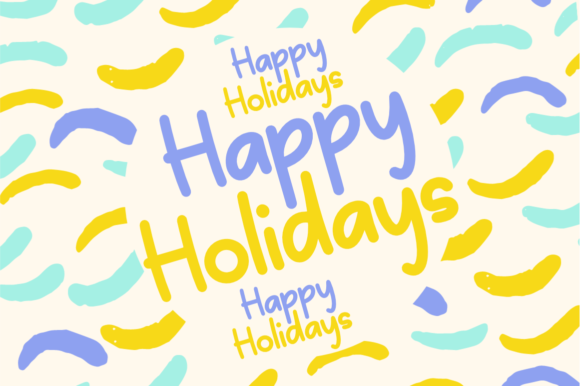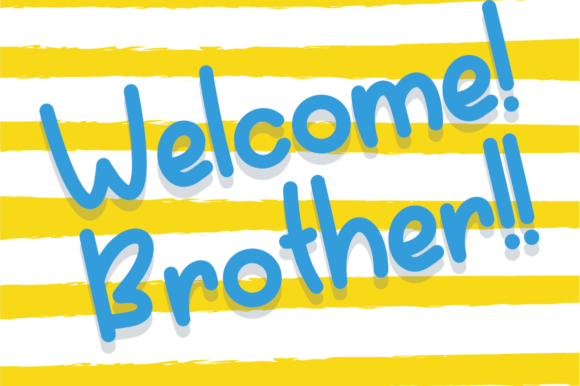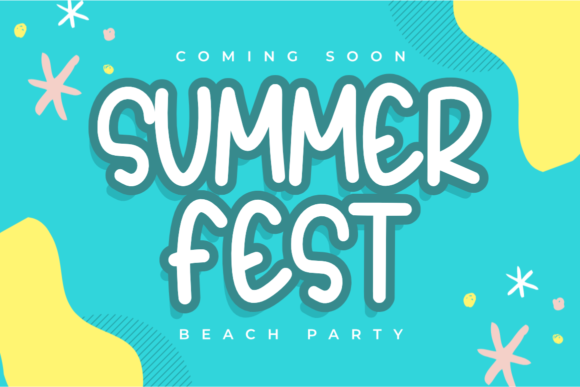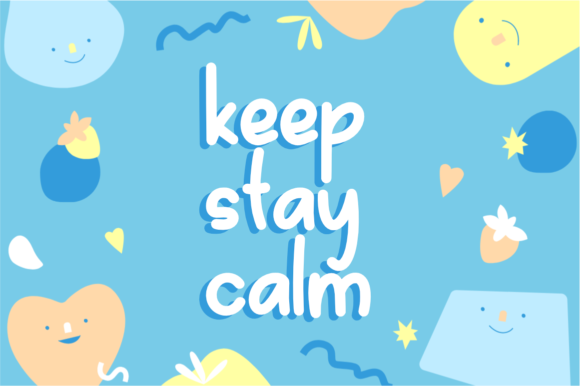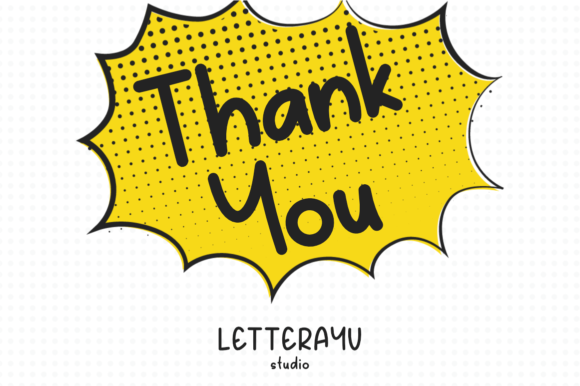
Introducing Comic Kans Font: The Cute Script Font for Creative Designs
Are you a designer or crafter looking for a font that can add a touch of sweetness to your next project? Look no further than Comic Kans Font! This versatile script font is perfect for a wide range of applications, from greeting cards to kids’ crafts, and is sure to bring a smile to anyone’s face.
What is Comic Kans Font?
Comic Kans Font is a cute script font that is designed to be playful, fun, and engaging. Its unique and quirky style makes it perfect for designs that require a personal touch. The font is highly legible, making it suitable for both digital and print designs.
Features of Comic Kans Font
- Unique and Quirky Style: Comic Kans Font has a distinct style that sets it apart from other script fonts. Its playful and fun design makes it perfect for creative projects.
- Highly Legible: The font is designed to be easy to read, making it suitable for both digital and print designs.
- Versatile: Comic Kans Font can be used for a wide range of applications, from greeting cards to kids’ crafts, and even social media graphics.
- Cute and Playful: The font’s cute and playful design makes it perfect for projects that require a personal touch.
Uses of Comic Kans Font
Comic Kans Font is a versatile font that can be used for a wide range of applications. Here are some ideas to get you started:
- Greeting Cards: Add a personal touch to your greeting cards with Comic Kans Font. It’s perfect for birthdays, holidays, and special occasions.
- Kids’ Crafts: Comic Kans Font is perfect for kids’ crafts, such as making posters, flyers, and other creative projects.
- Social Media Graphics: Use Comic Kans Font to create engaging social media graphics that are sure to grab attention.
- Invitations: Create custom invitations for parties, events, and other special occasions with Comic Kans Font.
- Digital Designs: Use Comic Kans Font in digital designs, such as e-cards, digital invitations, and more.
Benefits of Using Comic Kans Font
Using Comic Kans Font in your designs can have several benefits. Here are a few:
- Adds a Personal Touch: Comic Kans Font adds a personal touch to your designs, making them more engaging and relatable.
- Increases Creativity: The font’s playful and quirky style can inspire creativity and help you think outside the box.
- Perfect for Kids’ Projects: Comic Kans Font is perfect for kids’ projects, making them more fun and engaging.
- Easy to Read: The font’s high legibility makes it easy to read, even for young children.
Tips for Using Comic Kans Font
Here are some tips for using Comic Kans Font in your designs:
- Use it Sparingly: Use Comic Kans Font sparingly to add emphasis to certain words or phrases.
- Pair it with Other Fonts: Pair Comic Kans Font with other fonts to create a unique and interesting design.
- Keep it Simple: Keep your design simple and clean to let Comic Kans Font shine.
Comic Kans Font is a versatile and cute script font that is perfect for a wide range of applications. Its unique and quirky style makes it perfect for designs that require a personal touch. With its high legibility and playful design, Comic Kans Font is sure to add a sweet touch to your next design. So why not give it a try and see what creative projects you can come up with?